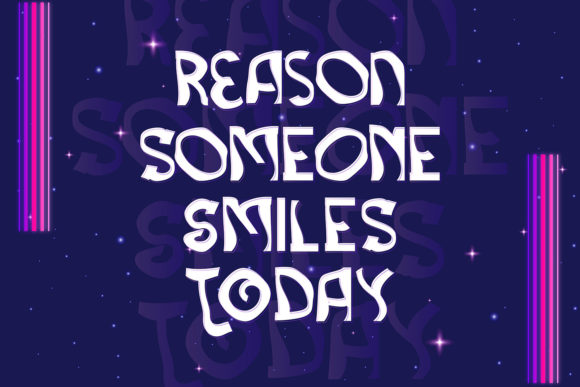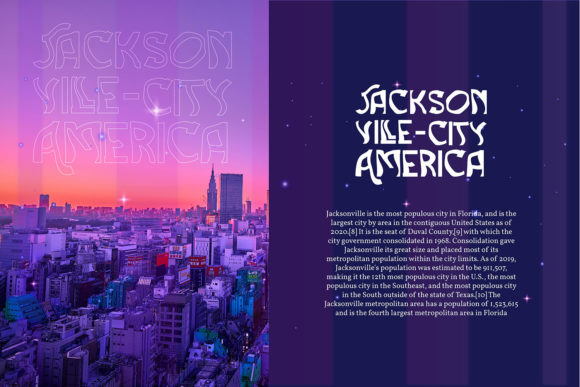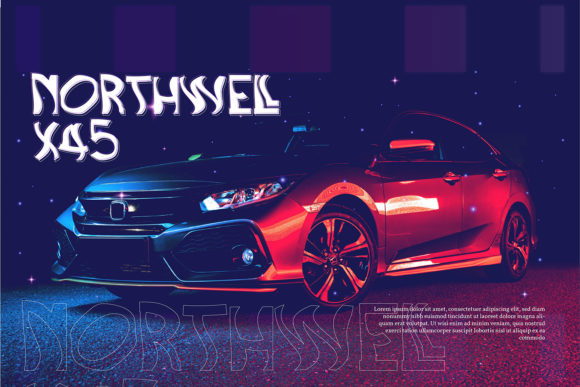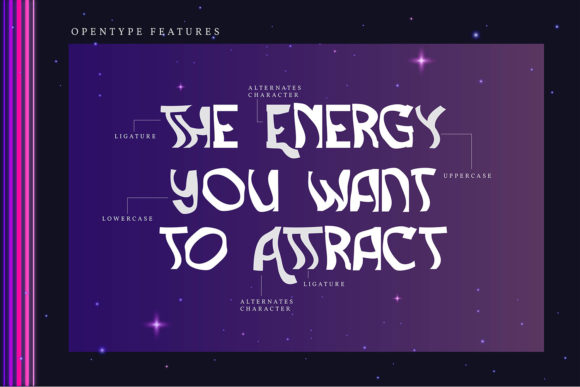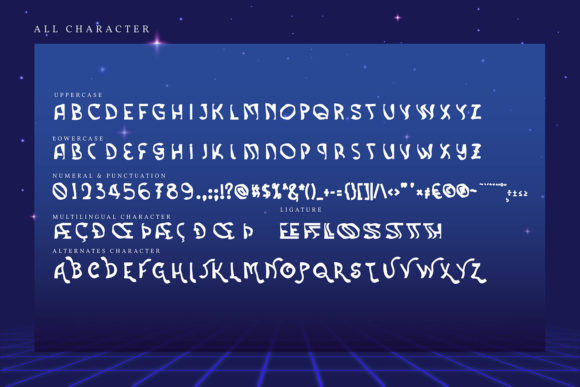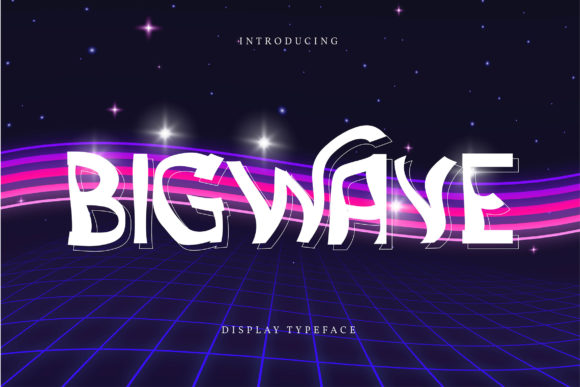
Introducing Bigwave Font: The Ultimate Retro Display Font for Designers and Crafters
Are you on the hunt for a font that can add a touch of retro charm to your designs? Look no further than Bigwave Font! This incredibly cool, trendy, and retro-styled display font is perfect for designers and crafters who want to create spectacular designs that stand out from the crowd. In this article, we’ll dive into the features and benefits of Bigwave Font, and explore how you can use it to take your designs to the next level.
What is Bigwave Font?
Bigwave Font is a stylish display font that is perfect for creating eye-catching designs. Its retro vibe is reminiscent of the 80s and 90s, making it ideal for designs that require a touch of nostalgia. The font is PUA encoded, which means you can access all of the glyphs and swashes with ease. This makes it easy to use and customize, even for those who are new to font design.
Key Features of Bigwave Font
- PUA Encoded: Bigwave Font is PUA encoded, which means you can access all of the glyphs and swashes with ease. This makes it easy to use and customize, even for those who are new to font design.
- Retro Style: Bigwave Font has a unique retro style that is perfect for designs that require a touch of nostalgia.
- Versatile: Bigwave Font is incredibly versatile, making it perfect for a wide range of design projects, from posters and flyers to logos and branding.
Benefits of Using Bigwave Font
So why should you choose Bigwave Font for your design projects? Here are just a few benefits of using this amazing font:
- Adds a Touch of Retro Charm: Bigwave Font adds a touch of retro charm to any design, making it perfect for designs that require a nostalgic feel.
- Stand Out from the Crowd: Bigwave Font is a unique and stylish font that will help your designs stand out from the crowd.
- Versatile: Bigwave Font is incredibly versatile, making it perfect for a wide range of design projects.
- Easy to Customize: Bigwave Font is easy to customize, thanks to its PUA encoding.
Design Ideas Using Bigwave Font
Bigwave Font is perfect for a wide range of design projects. Here are a few ideas to get you started:
- Retro Posters: Create retro-style posters using Bigwave Font and add a touch of nostalgia to your designs.
- Logos and Branding: Use Bigwave Font to create unique and stylish logos and branding materials.
- Flyers and Brochures: Create eye-catching flyers and brochures using Bigwave Font and add a touch of retro charm to your marketing materials.
- Social Media Graphics: Use Bigwave Font to create social media graphics that stand out from the crowd.
In conclusion, Bigwave Font is an incredibly cool, trendy, and retro-styled display font that is perfect for designers and crafters who want to create spectacular designs. Its PUA encoding makes it easy to use and customize, and its versatile style makes it perfect for a wide range of design projects. Whether you’re creating posters, logos, or social media graphics, Bigwave Font is the perfect choice. So why wait? Download Bigwave Font today and start creating!